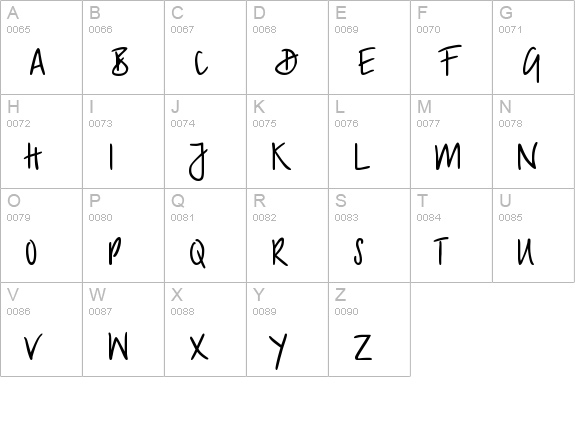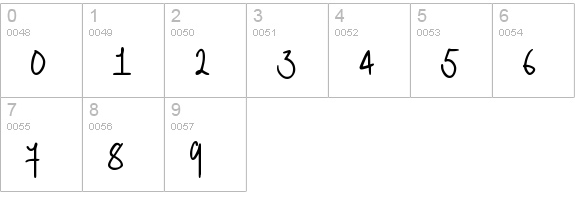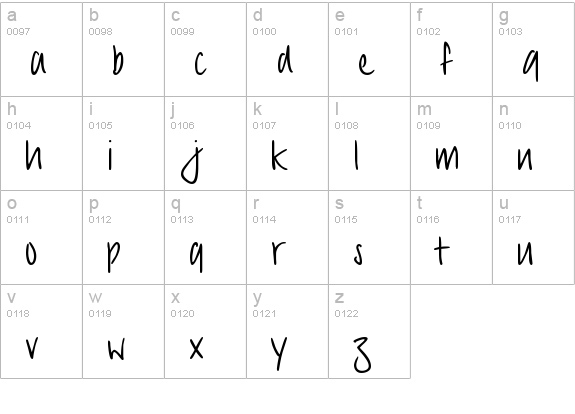
PT Script Sirocco Font Details
PT Script Sirocco is a beautifully crafted script font that exudes elegance and sophistication. With its delicate and flowing strokes, this font is perfect for adding a touch of grace to any project. Whether you're designing invitations, logos, or branding materials, PT Script Sirocco will surely elevate your designs to the next level. This font is not only aesthetically pleasing but also versatile, making it suitable for a wide range of design projects. Its classic yet modern style makes it a timeless choice that will never go out of fashion. Best of all, PT Script Sirocco is available for free download at FontsMarket.com. This means you can easily access this stunning font and use it in your projects without any hassle. Don't miss out on this amazing opportunity to enhance your designs with PT Script Sirocco!